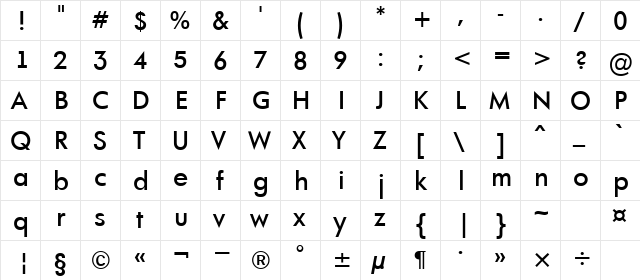
a_FuturaOrtoLt Bold
Design Context for a_FuturaOrtoLt Typeface
a_FuturaOrtoLt channels digital-age aesthetics through its sharp, structured letterforms — ideal for brands that want to signal innovation. The heavy weight commands attention and anchors typographic hierarchies.
Pro Tip: Use a_FuturaOrtoLt in combination with a neutral sans for body text. Let it define the brand voice in headlines while keeping reading comfortable elsewhere.